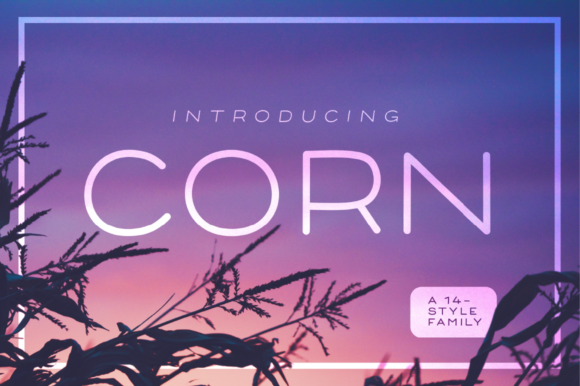
In a fast-paced, digital world where first impressions are often made online, your brand's visual identity plays a crucial role in capturing attention, conveying your message, and establishing a lasting connection with your audience. Amidst the myriad of design elements, typography stands out as a powerful tool capable of transforming ordinary text into an extraordinary visual experience. Introducing Corn Font - the ultimate sans serif font family meticulously crafted to elevate your luxury brand to new heights of sophistication and distinction.
Corn Font is not merely a collection of letters; it is an artistic masterpiece that exudes elegance, refinement, and understated luxury. Its clean, simple lines and understated charm evoke a sense of timeless sophistication, akin to a finely tailored suit or a handcrafted timepiece. Each character radiates an aura of exclusivity and craftsmanship, making it the perfect choice for brands seeking to create a lasting impression of quality and excellence.
Embrace Corn Font's remarkable versatility and watch as it seamlessly complements each of your creative designs. Whether you seek to craft captivating logos, elegant brochures, or engaging website layouts, Corn Font effortlessly adapts to your vision, enhancing your message with a touch of understated luxury. Let Corn Font be the cornerstone of your visual identity, the foundation upon which your brand's story is woven.
Unlike ordinary fonts that fade into the background, Corn Font commands attention with its distinct personality and captivating presence. Its meticulously crafted curves and precisely executed details create a visual symphony that draws the eye and captivates the senses, leaving an indelible mark on the minds of your audience. Experience the transformative power of Corn Font and witness how it elevates your brand's message, making it resonate with your audience on a deeper level.
With Corn Font, you unlock a world of endless creative possibilities. Unleash your imagination and embark on a journey of visual storytelling, where your brand's narrative unfolds in a symphony of elegance and sophistication. Its inherent versatility empowers you to effortlessly adapt to evolving trends, ensuring that your brand remains at the forefront of innovation while maintaining its timeless appeal.